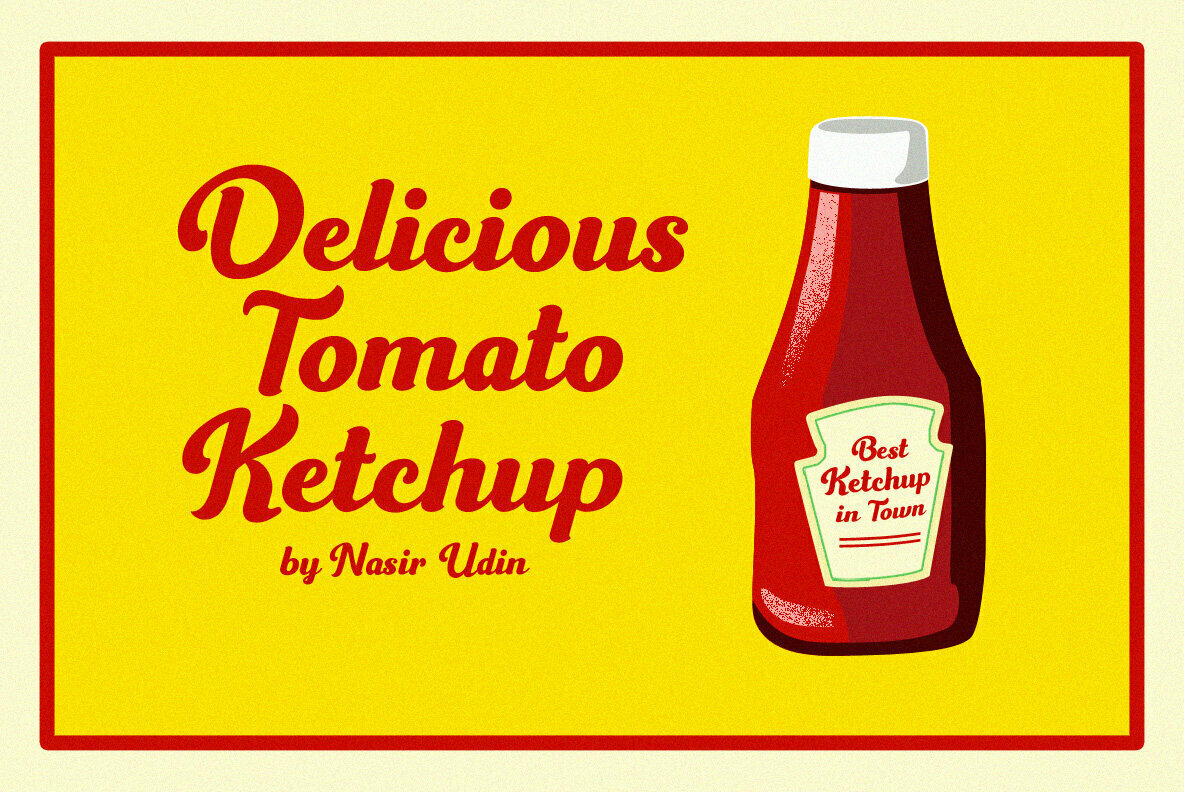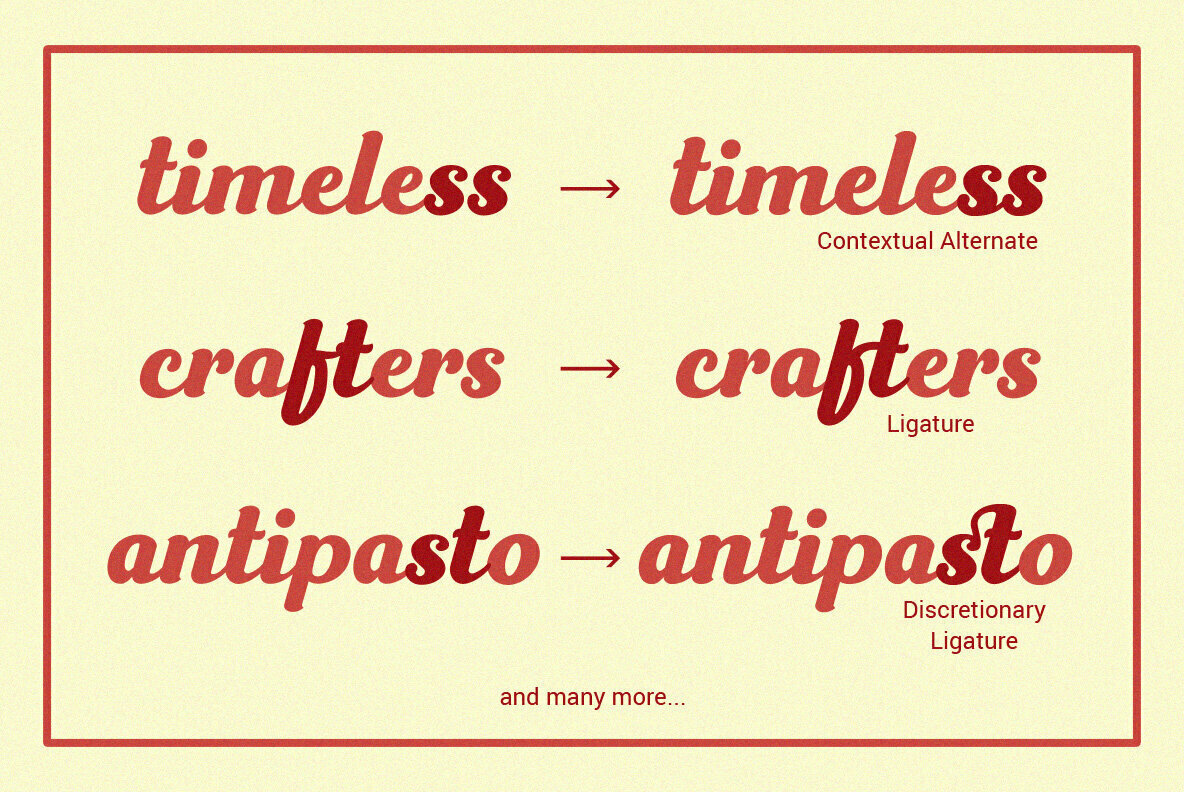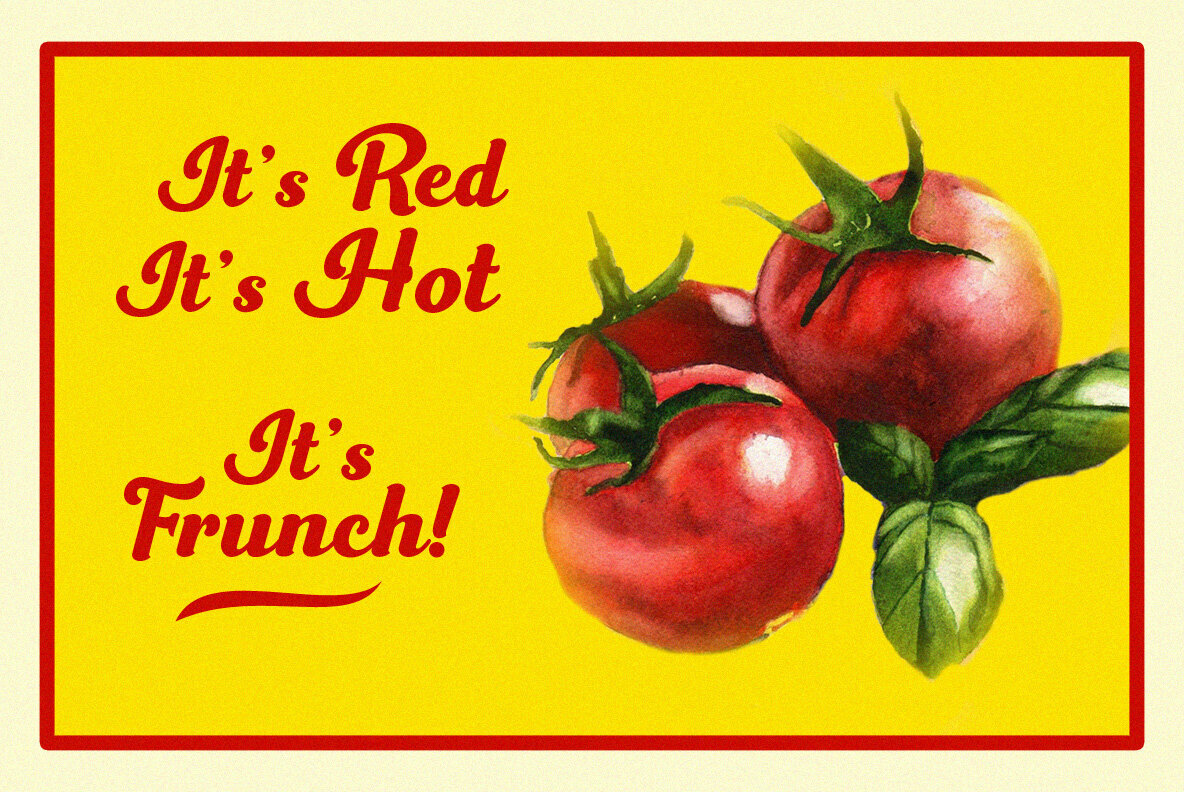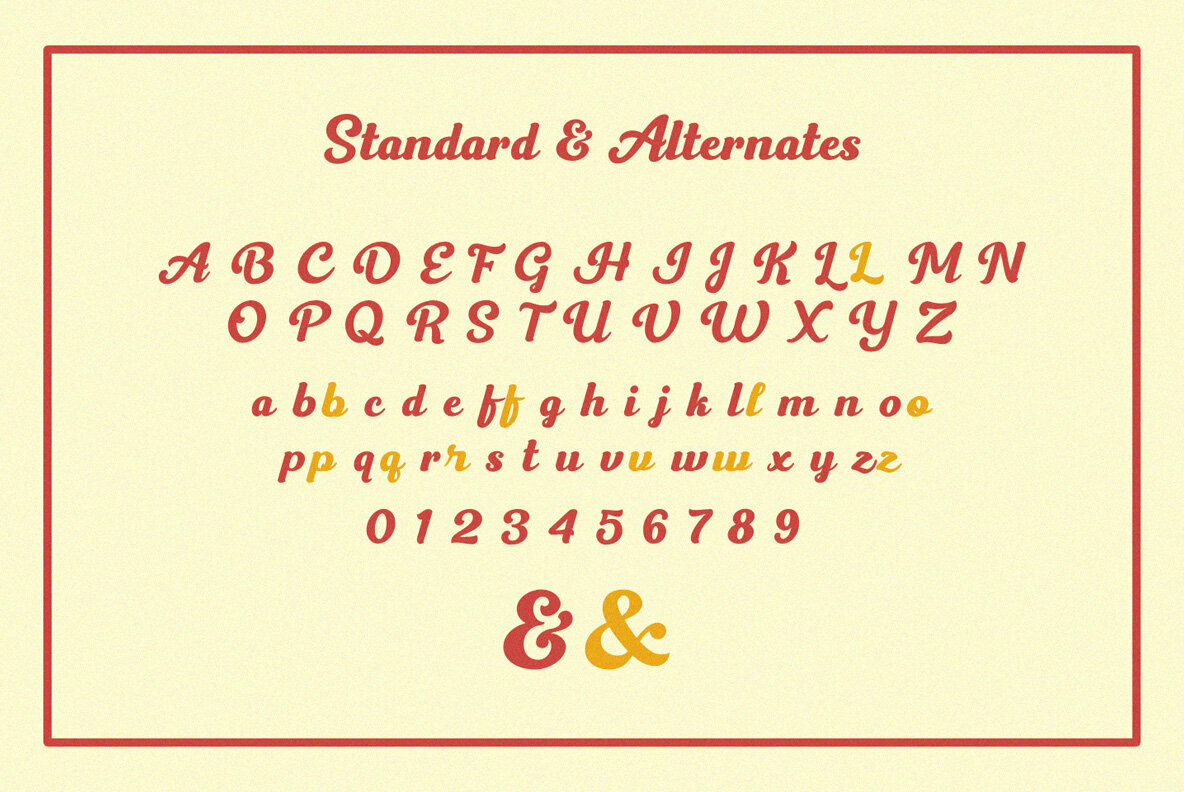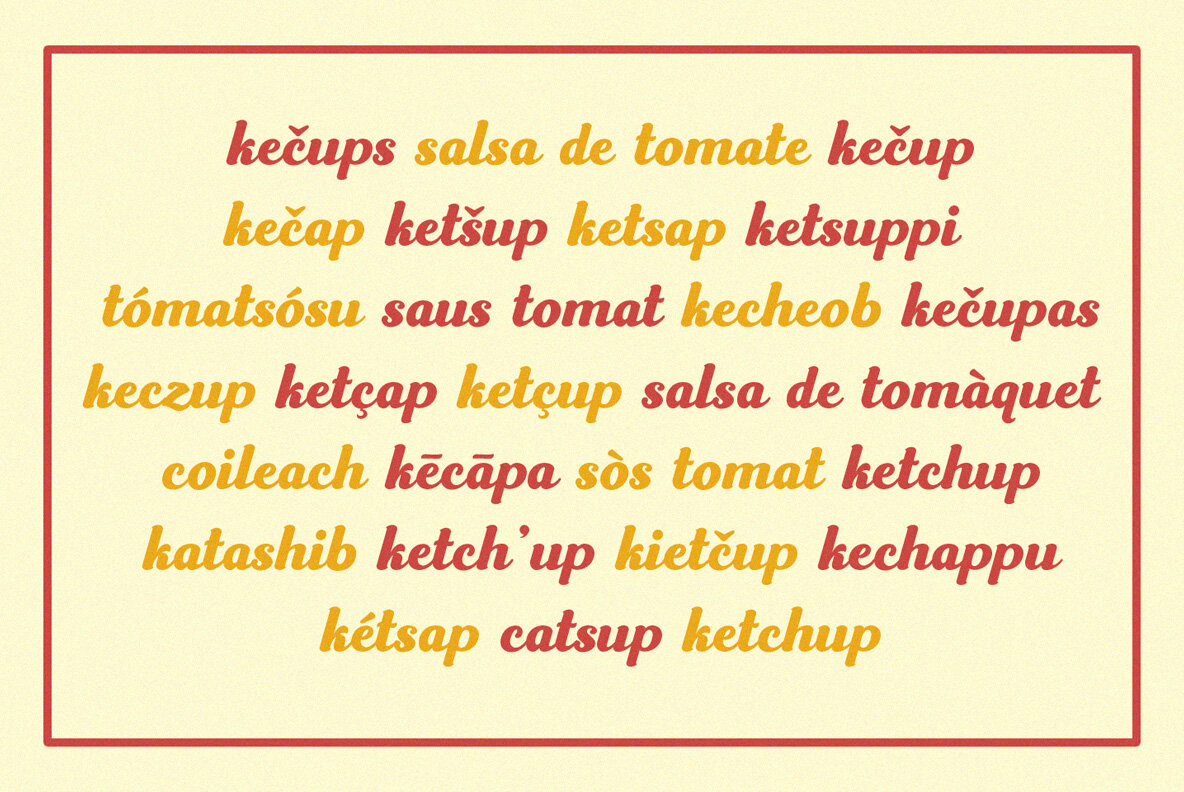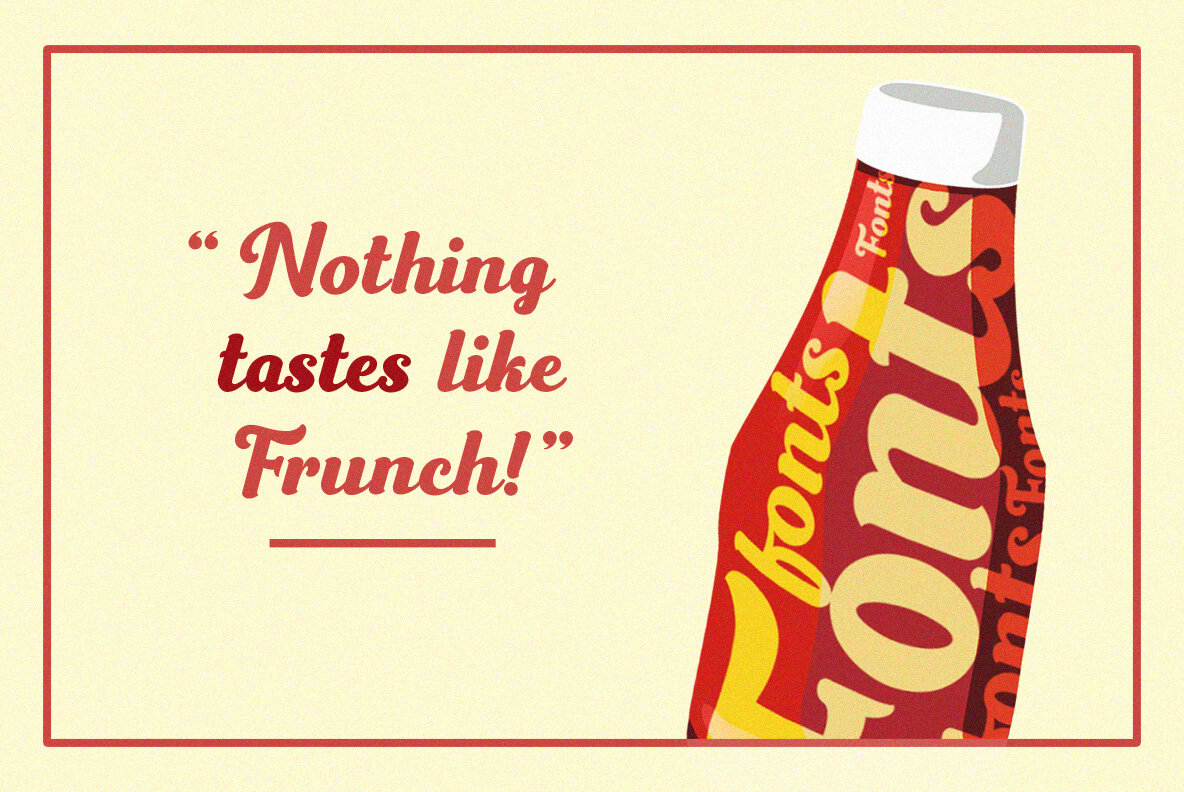
Frunch Font
Starve for tasty bold font? Say hello to Frunch! A delicious bold script font with a vintage vibe.
Frunch comes to you with several alternate letters for you to play with and the complete set of lowercase-letter swashes that make your words look delicious and stand out.
It's especially created for food & beverages branding as well as product packaging typography (e.g.: snack, honey, breakfast meal, milk, bread and cake). It's also perfect for poster, business cards, headline, restaurant menus, and much more.
The OpenType features Frunch has: Stylistic Alternates, Swashes, Ligatures, Discretionary Ligatures, and Contextual Alternates. It's a PUA encoded font that can be used in any program by using your operating system’s utilities such as Character Map (Windows) and Font Book (Mac) as well as Illustrator, InDesign, Photoshop, etc. For folks who doesn't have OpenType-supported software, I include the Swashes as a separate font.